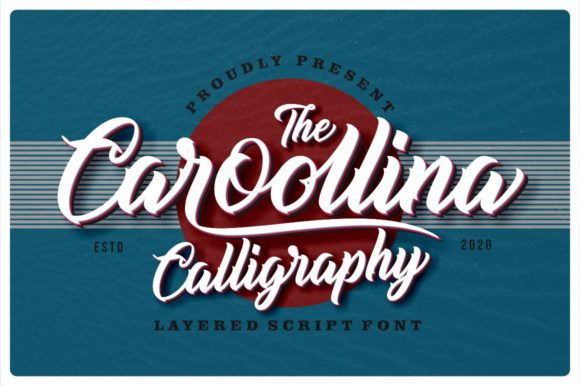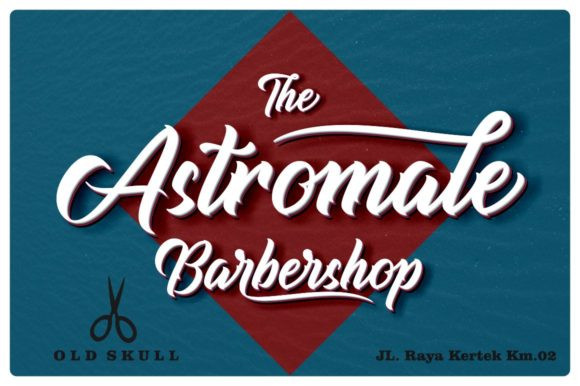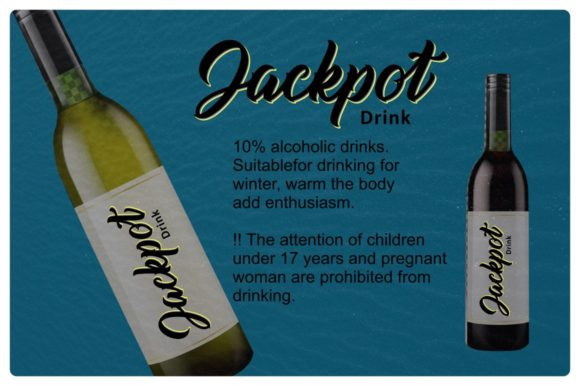
Caroollina Font
Caroollina simplifies elegance into one truly outstanding handwritten font. This font is the perfect fit for all of your logos, branding, social media, and crafty DIY projects.